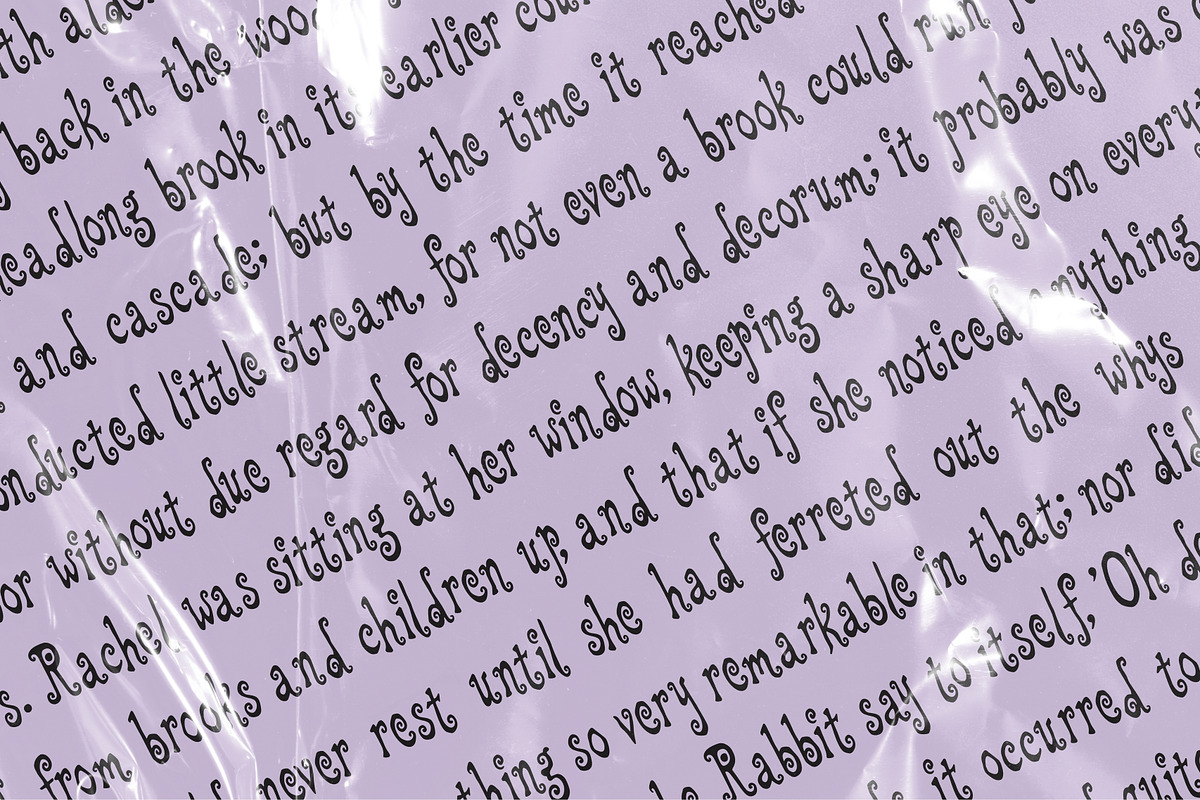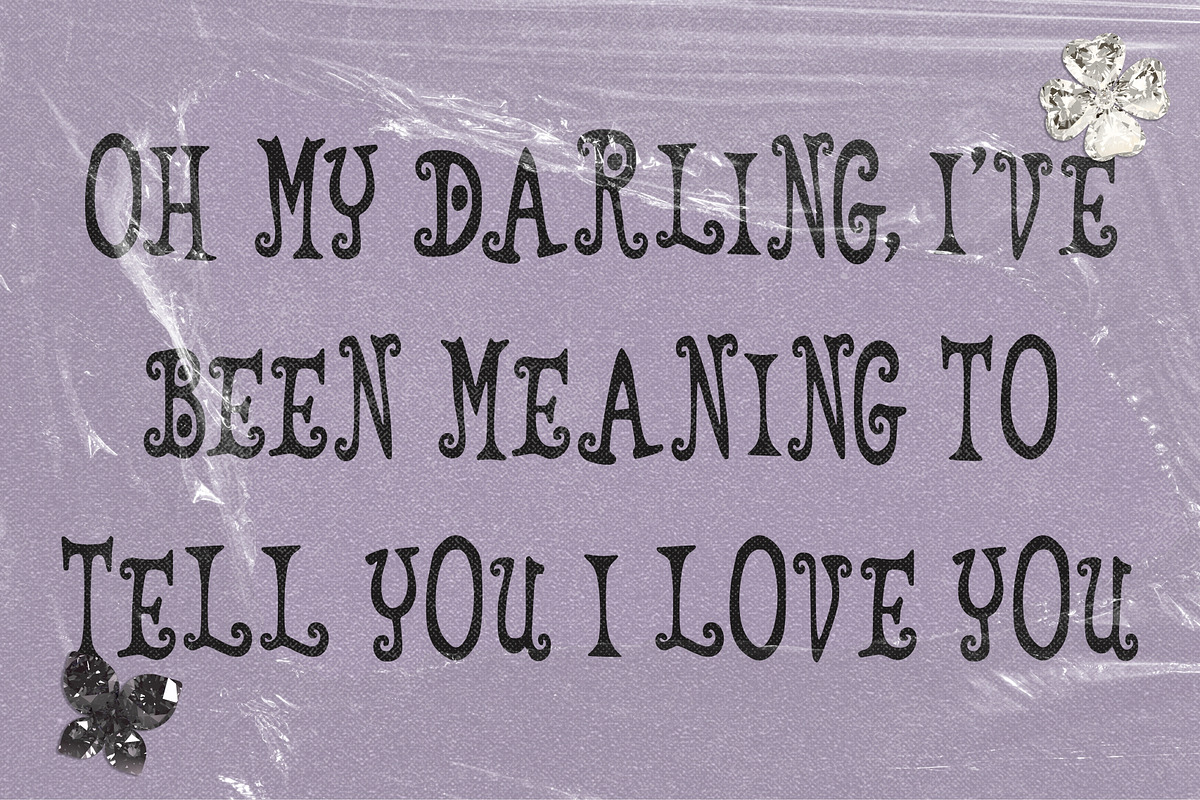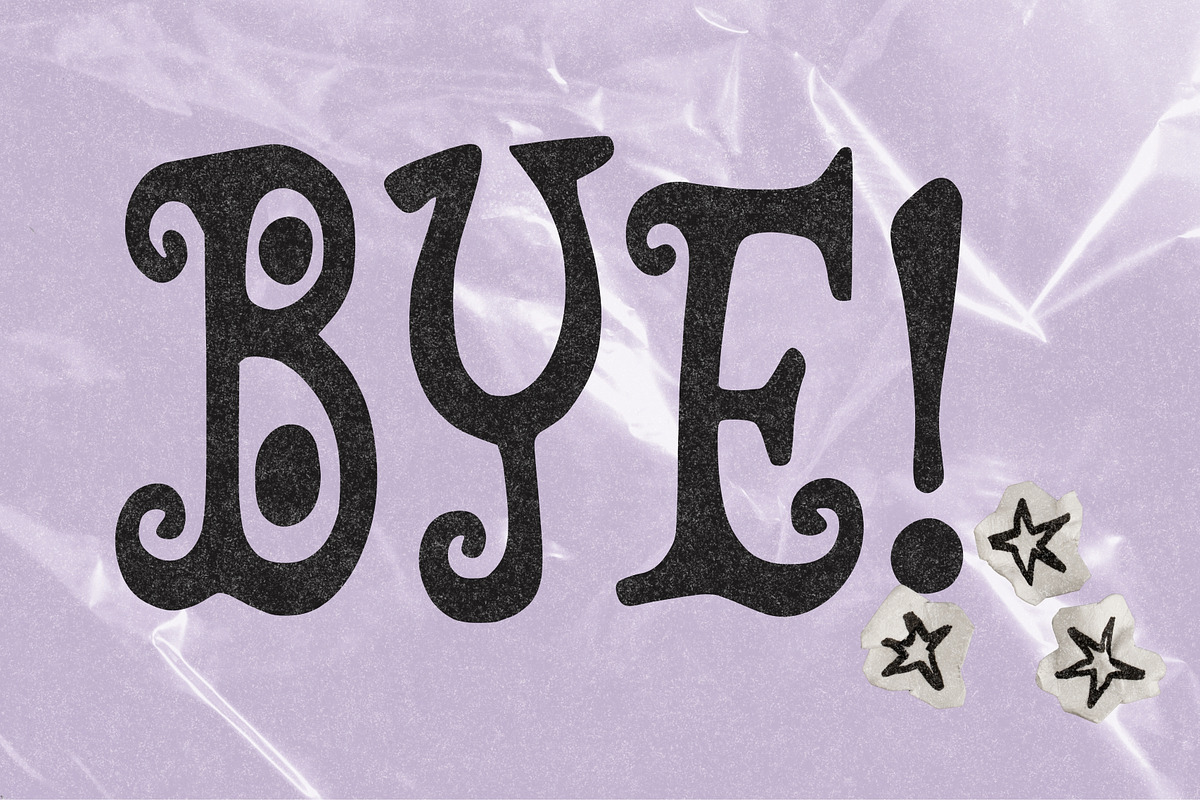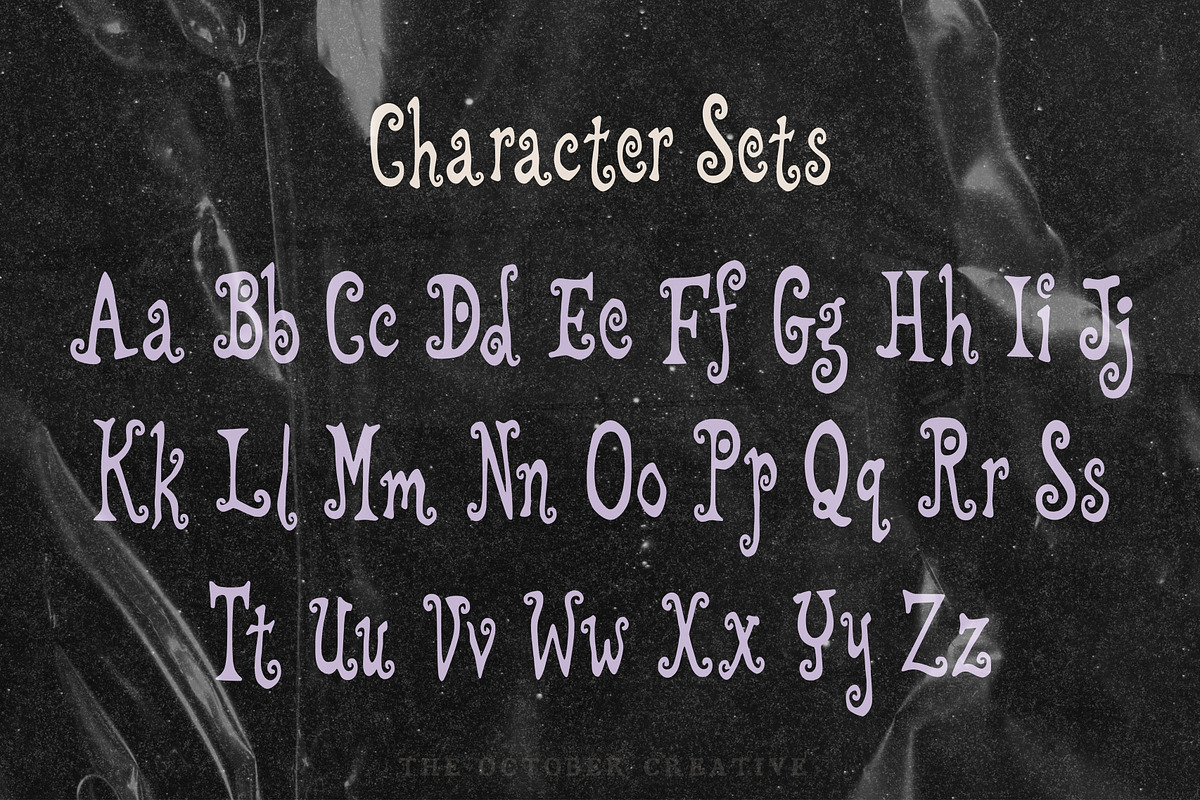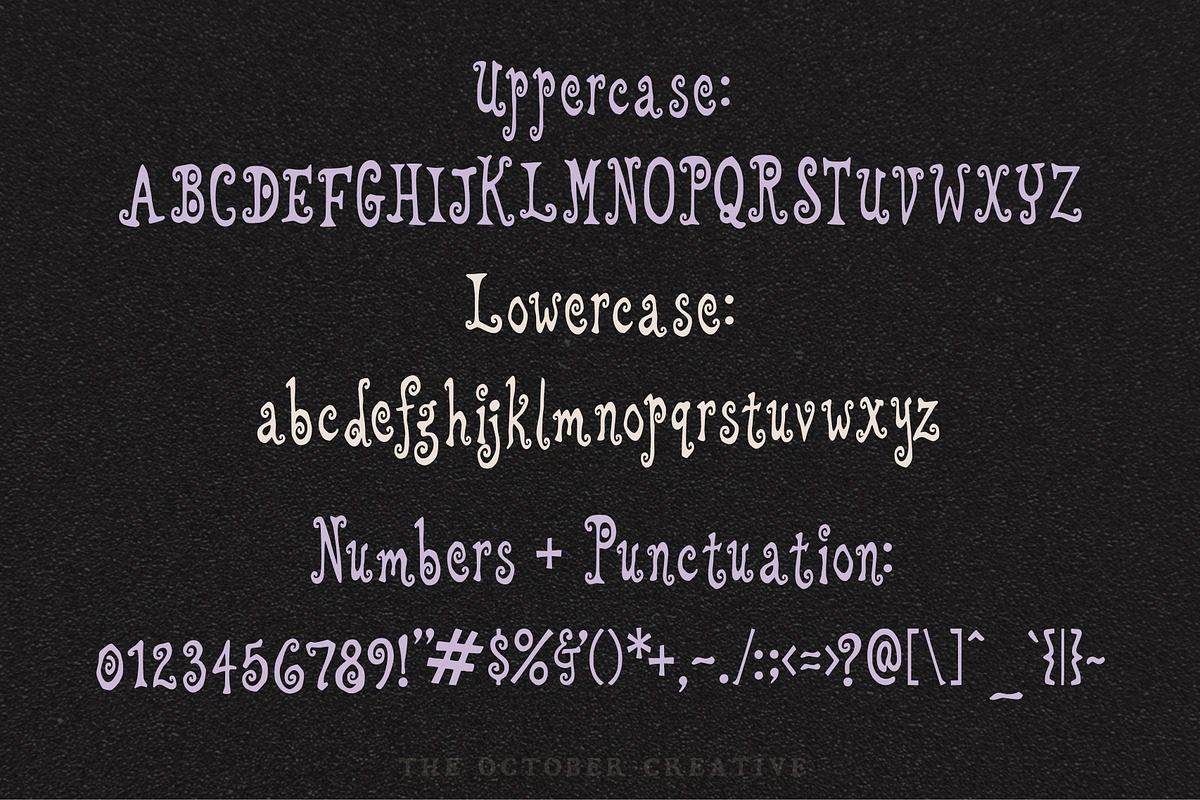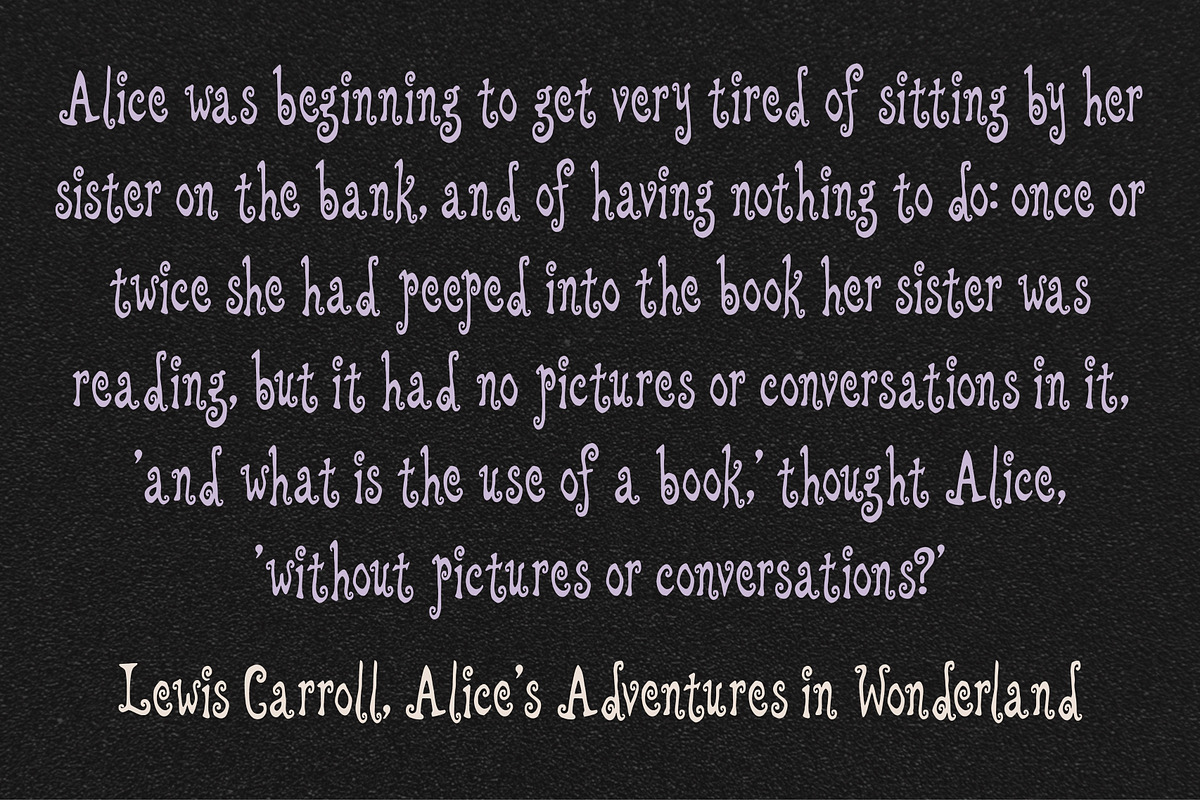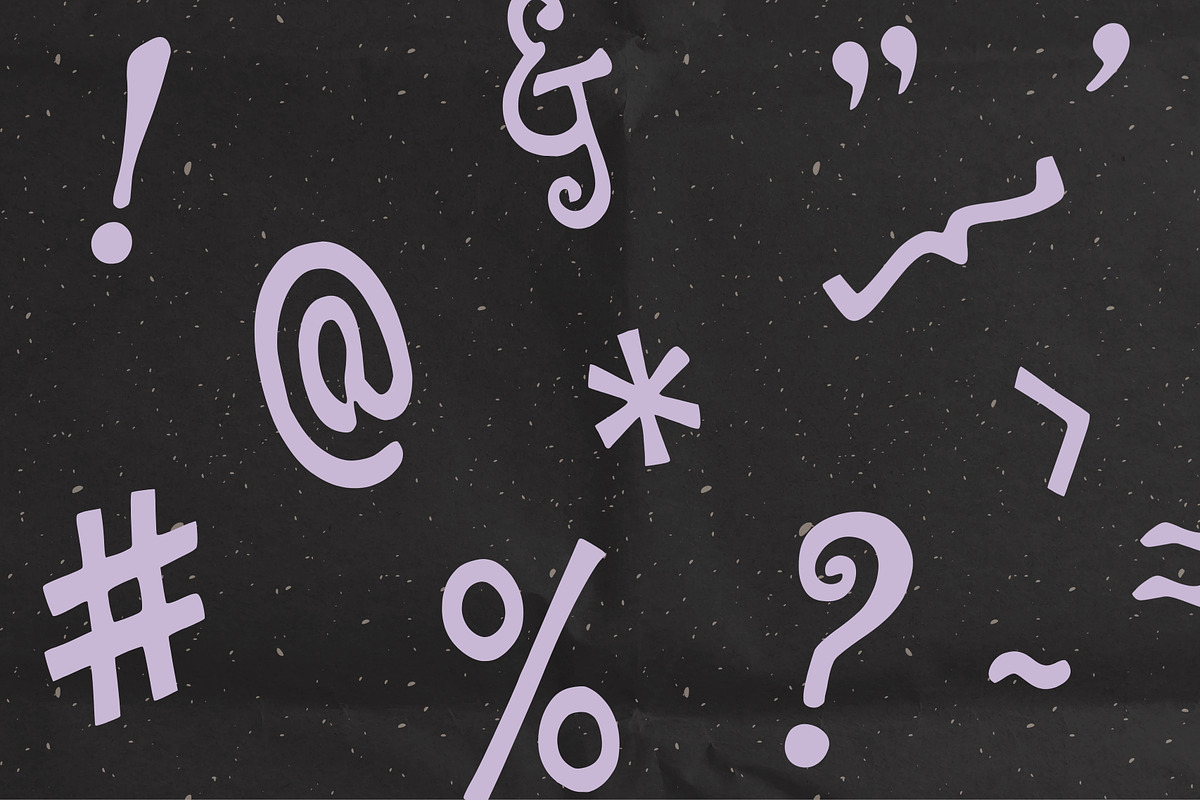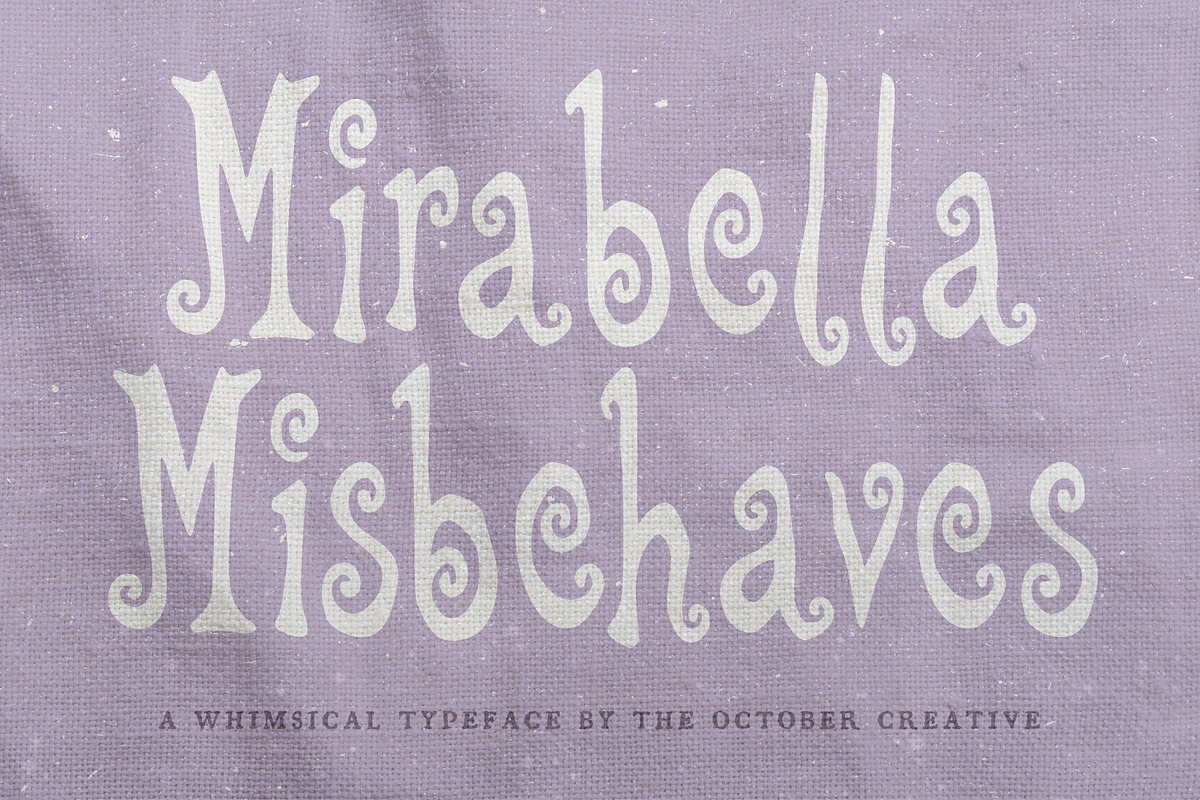
Mirabella Misbehaves Groovy Display
Mirabella Misbehaves is a groovy display font with bold seventies letters, curled terminals, and a wide confident stance. It fits magazine headers, fashion editorials, book covers, and poster titles.
CHARACTER SET
Uppercase A to Z, lowercase a to z, numerals 0 to 9, and every standard keyboard punctuation mark and symbol: ! " # $ % & ' ( ) * + , - . / : ; < = > ? @ [ \ ] ^ _ ` { | } \~
Curly quotes and apostrophes (‘ ’ “ ”), en and em dashes, an ellipsis, and a bullet.
Accented letters: À Á Â Ã Ä Å Ç È É Ê Ë Ì Í Î Ï Ñ Ò Ó Ô Õ Ö Ù Ú Û Ü and their lowercase forms.
LANGUAGES SUPPORTED
English, plus the accented vowels, Ñ, and Ç used in names and everyday words in Spanish, French, Italian, Portuguese, German, and Dutch. Not included: ß, Æ, Ø, Œ, and the upside-down ¿ and ¡.
SPECIAL CHARACTERS